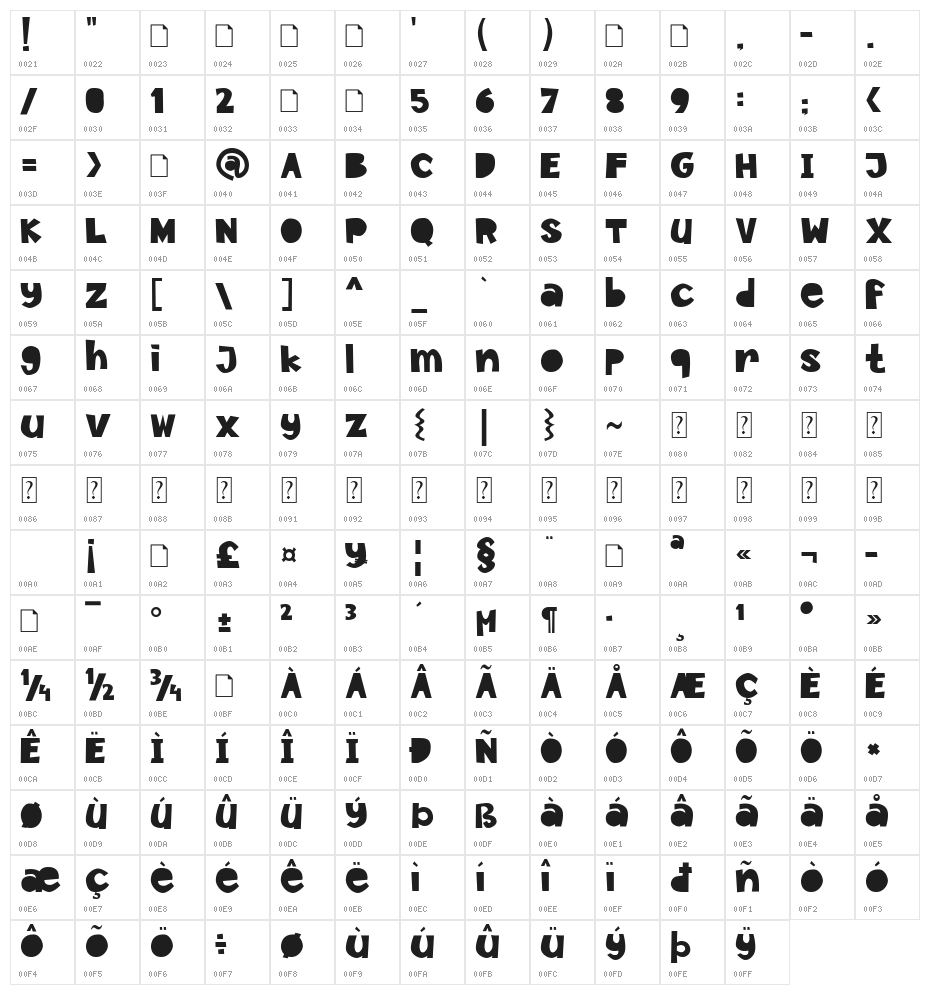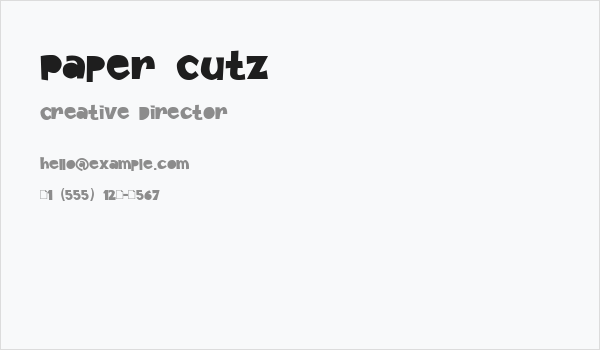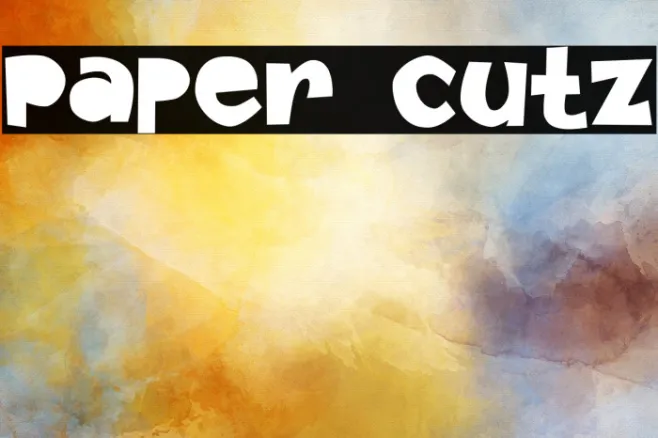
Paper Cutz Font
Paper Cutz Description
This font features a playful and bold design, reminiscent of cut-out paper shapes. Each character has a unique, slightly irregular form, giving it a handcrafted and whimsical appearance. The uppercase letters are robust and eye-catching, while the lowercase letters maintain a consistent style with a touch of quirkiness. The numbers and special characters follow the same playful theme, making the font ideal for creative and informal projects. Its boldness ensures high visibility, making it suitable for headlines and titles. The overall style is decorative and modern, with a touch of artistic flair.
| Proposed Projects | Ideal for children's book covers, playful posters, creative branding, and event invitations. |